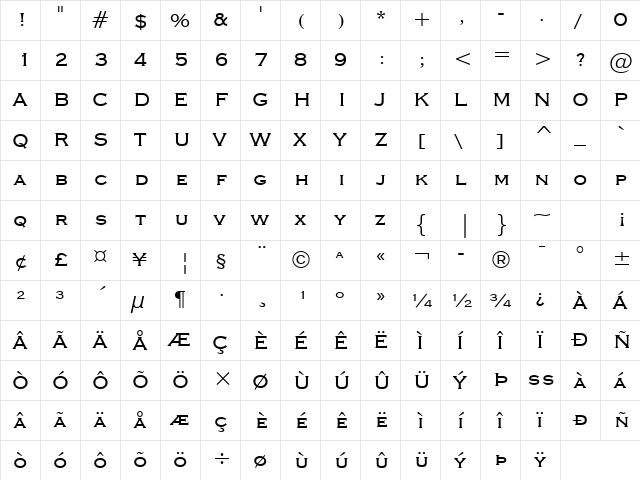
CopprplGoth BT Roman
Design Context for CopprplGoth BT Typeface
CopprplGoth BT takes a measured approach to typography — its balanced proportions and neutral character make it a reliable workhorse for both digital and print work.